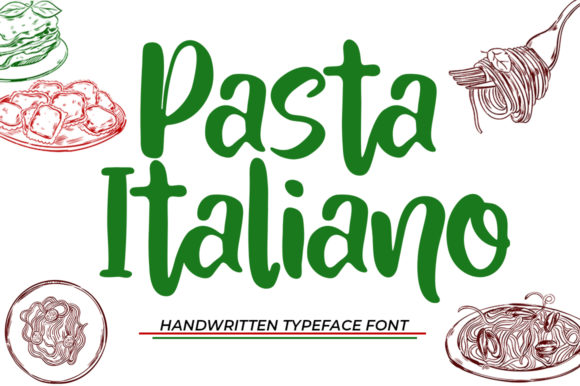
Feast your eyes upon Pasta Italiano, a delectable script font that will tantalize your senses and add a luscious flavor to your creative projects. Whether you're crafting elegant wedding invitations, enchanting logos, or heartfelt greeting cards, Pasta Italiano is the perfect ingredient to bring your visions to life.
Indulge in the sweetness of its handwritten charm, as each letter dances across the page like a culinary masterpiece. The font's delectable flow will make your designs come alive, adding a touch of whimsy and sophistication that is sure to captivate all who lay their eyes upon it.
Picture the joy of your guests as they receive wedding place cards adorned with Pasta Italiano's graceful curves. The font's innate elegance will elevate the occasion, transforming a simple card into a cherished keepsake. Let Pasta Italiano be the storyteller of your love, guiding your guests through a journey of romance and bliss.
Step into a world of enchanting logos that exude creativity and flair. With Pasta Italiano as your muse, your brand identity will blossom into a work of art. The font's unique and eye-catching style will make your logo stand out from the crowd, leaving a lasting impression on potential customers. Let Pasta Italiano be the secret ingredient that sets your brand apart, attracting a loyal following that savors every morsel of your creative genius.
Unleash your emotions with Pasta Italiano's heartfelt greeting cards. Pour your love, gratitude, and admiration onto the page, and let the font's delicate strokes carry your message with grace and eloquence. Each card will become a tangible expression of your bond, a cherished memento that will be treasured for years to come. Let Pasta Italiano be the messenger of your heartfelt sentiments, conveying the depth of your emotions with charm and sincerity.
Pasta Italiano is more than just a font; it's an experience for the senses. It's a journey through a world of flavors, elegance, and pure creative delight. Join the culinary revolution and let Pasta Italiano transform your designs into mouthwatering masterpieces.